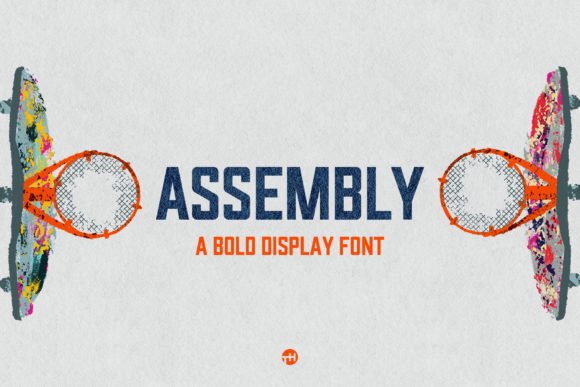
Where Creativity Meets Typography: The Power of Assembly Font
You’ve been staring at a blank canvas for hours, trying to find the perfect font to match your bold idea. You scroll through your design software’s font library, but nothing seems to pop. That’s when you stumble upon Assembly Font – a game-changing typeface that’s sure to bring your creative vision to life.
Assembly Font is a bold, condensed typeface inspired by vintage lettering found in athletics. Its unique design makes it adaptable to various applications, from album covers to apparel. Whether you’re a seasoned designer or just starting out, this versatile font is a valuable addition to your toolkit. With Assembly Font, you’ll be able to add a touch of sporty sophistication to your designs, setting you apart from the crowd.
Key Features of Assembly Font
- Unique Characteristics: Assembly Font features a unique blend of modern and industrial design elements, with geometric shapes and clean lines that give it a distinctive look.
Assembly Font Review
Overall, I have mixed feelings about the Assembly Font. On the one hand, there are some great things about it. ✨ The font’s geometric shapes and modern design make it a great choice for any contemporary project. ✨ The font family is also quite extensive, with a wide range of weights and styles to choose from. ✨ Additionally, the font’s legibility is top-notch, making it perfect for body text or headings.
However, there are also some limitations to consider. ⚠️ One of the main issues I have with Assembly Font is its lack of personality. It’s a very safe and conservative choice, which may not be ideal for projects that require a bit more flair. ⚠️ Another issue is the font’s limited language support, which may be a problem for projects that require a font that can handle multiple languages.
Pros and Cons:
- ✨ Geometric shapes and modern design
- ✨ Extensive font family with various weights and styles
- ✨ Excellent legibility
- ⚠️ Lack of personality
- ⚠️ Limited language support
Overall, I would give Assembly Font a solid 3 out of 5 stars. While it’s a great choice for certain projects, it’s not the most exciting or versatile font out there. If you’re looking for a safe and reliable font for a contemporary project, Assembly Font may be a good choice. But if you’re looking for something with a bit more personality or flair, you may want to consider other options.
Practical Application Guide for Assembly Font
Tips for Getting the Most Out of Assembly Font
To get the most out of Assembly Font, try using it in combination with other geometric fonts to create a cohesive and modern look.
Use the font’s custom characters and shapes to add visual interest to your design, and experiment with different font sizes and styles to create a unique and eye-catching effect.
Assembly Font is commonly used in modern branding and design projects, including:
Logos and branding materials
Infographics and data visualizations
Web design and development
Print design and advertising